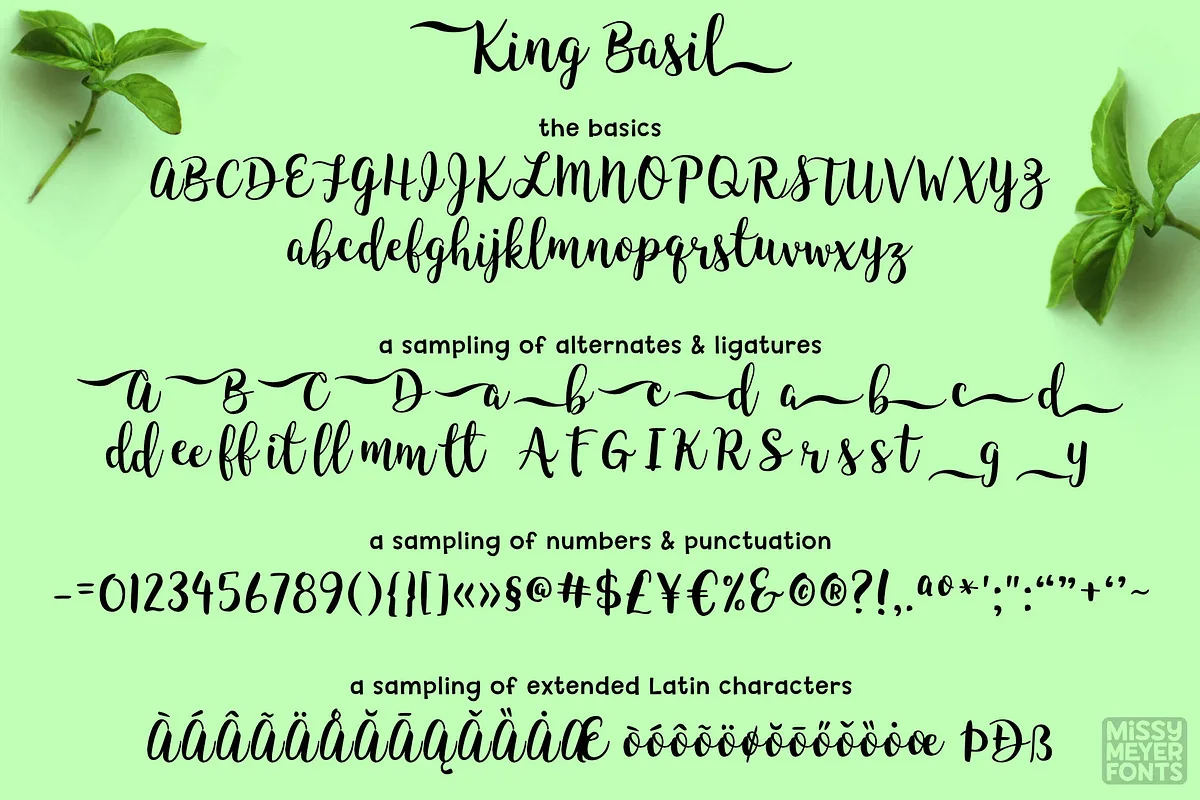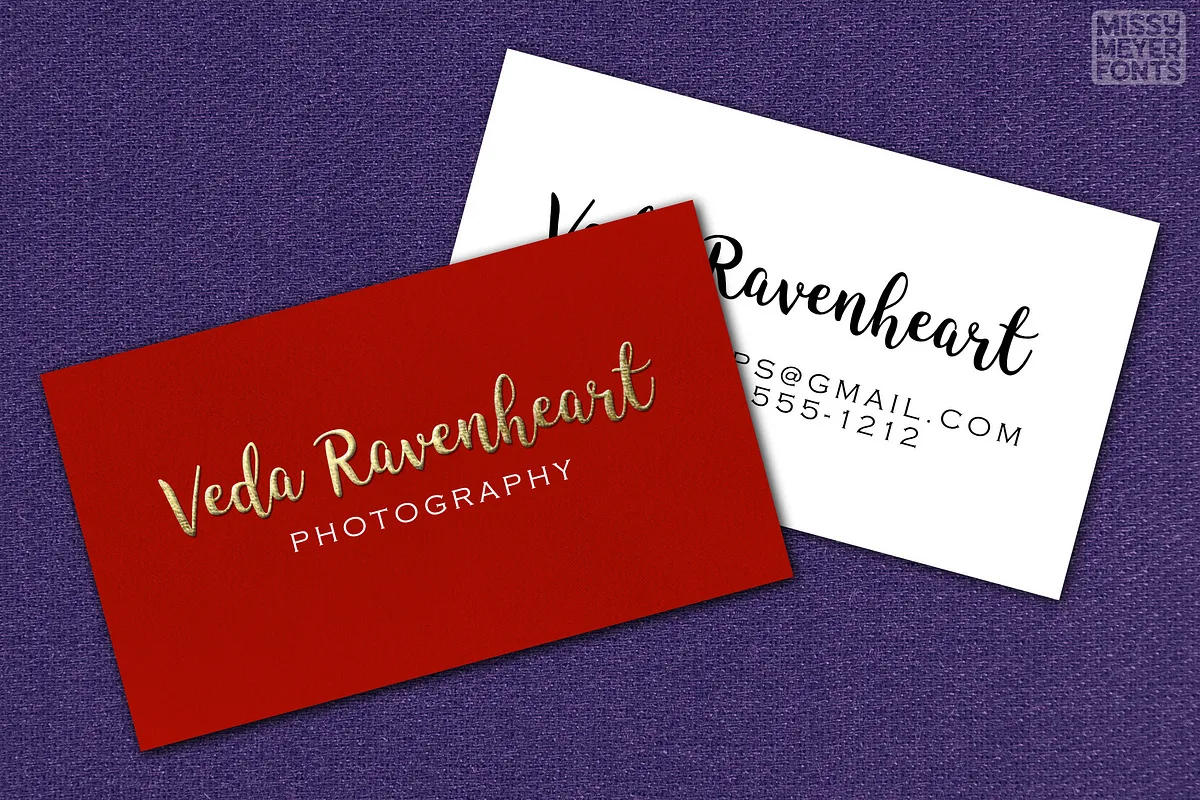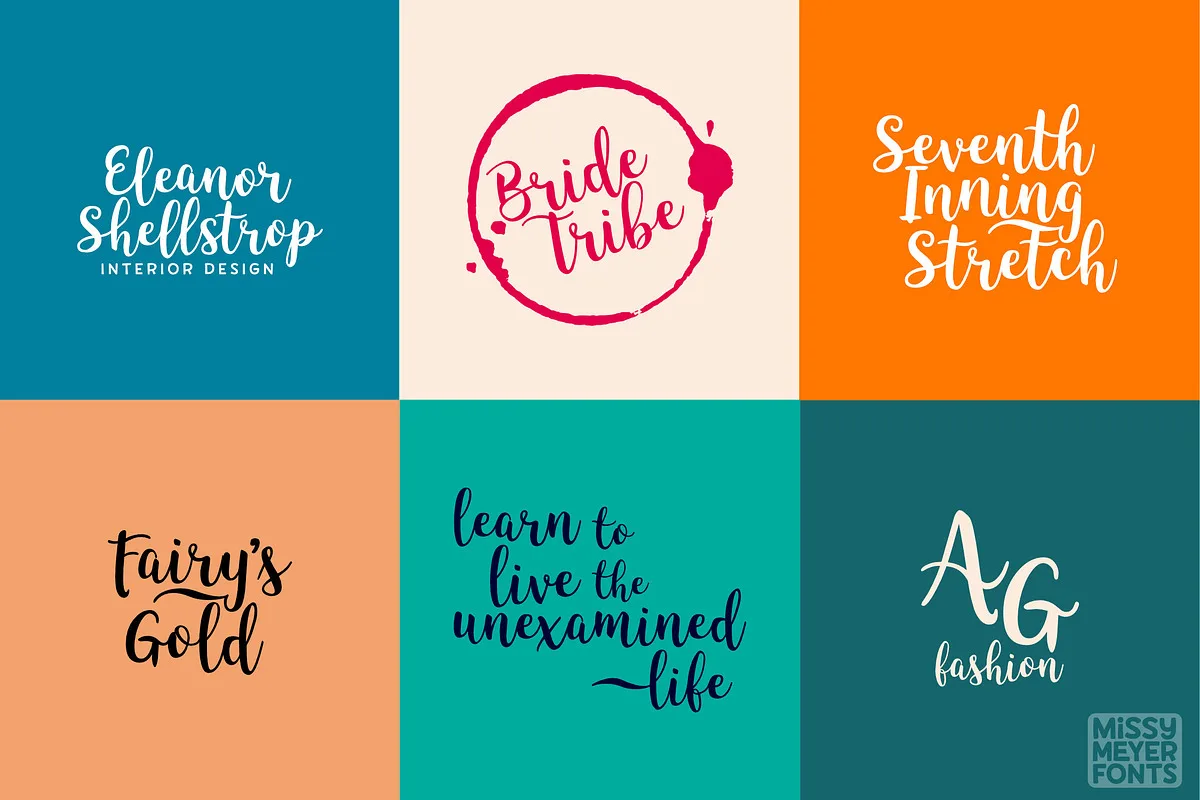
King Basil including A-Z, a-z, 0-9, tons of punctuation, 24 ligature sets, 163 accented characters, entry swash alternates for all uppercase and lowercase letters, exit swash alternates for all lowercase characters … this sucker has a ton of features!
All characters were hand-drawn on paper (with a Tombow brush pen), then scanned and imported, then the vectors were cleaned up and smoothed.